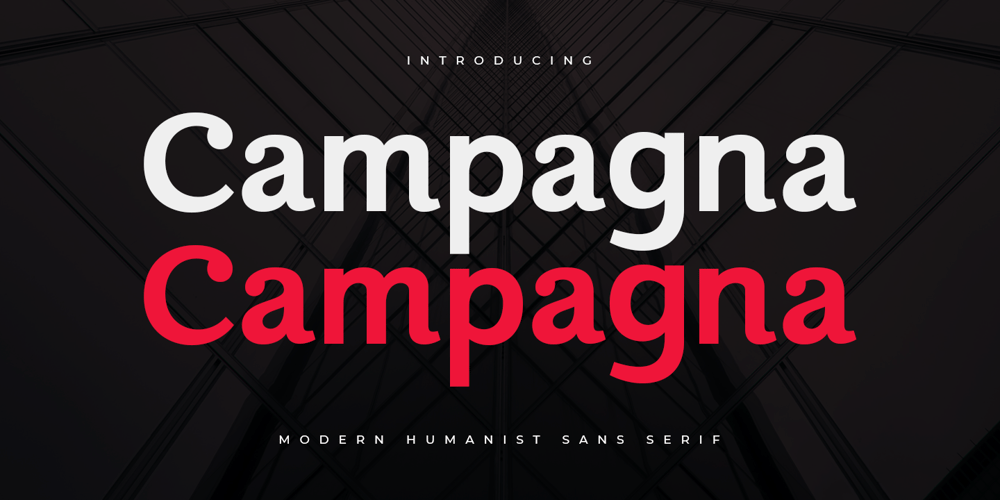
Campagna
Campagna font
Campagna Font Family was designed by Zamroni Hamzah and published by Sensatype Studio. Campagna contains 1 styles and family package options. A new San Serif Font that we created special for Headline, Title and more stand out typography needs. It’s so perfect to add your style and headline overview. And specially for Headline font, we crafted for unique style and modern feels so enjoy to create any project that will show your main idea out.Campagna Humanist Sans Serif Font ready with: 4 files format already Preview as a inspirations that you can do with Campagna font Ready with All characters Wish you enjoy our font. 🙂